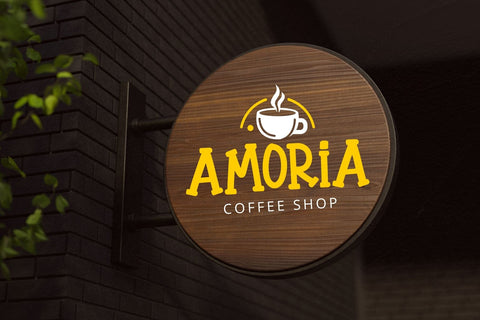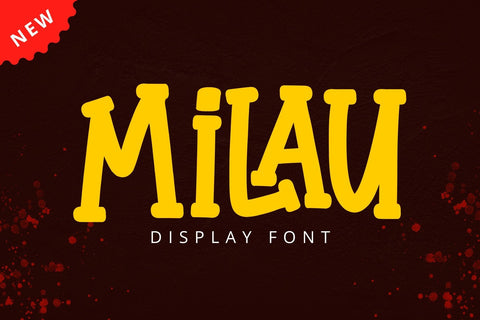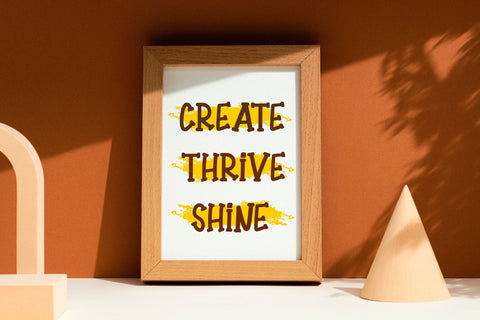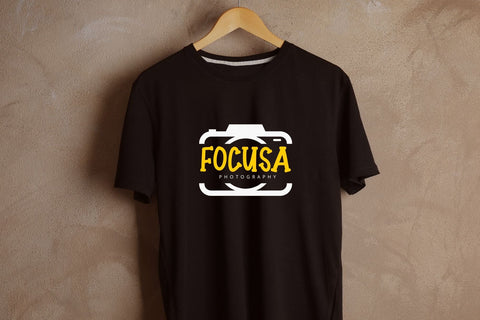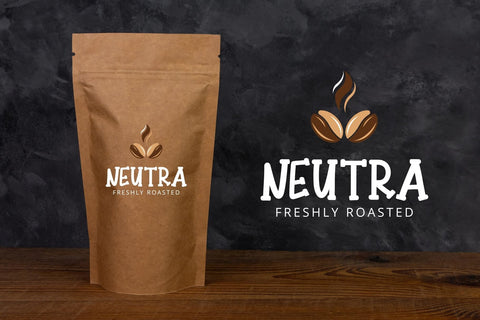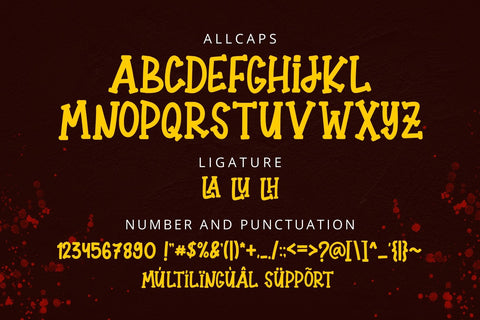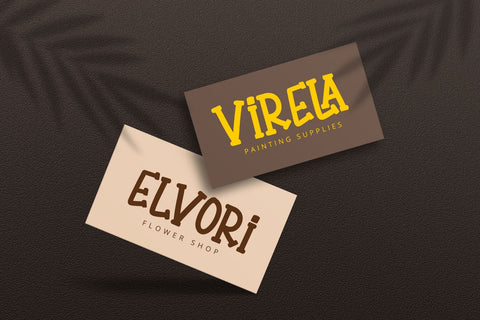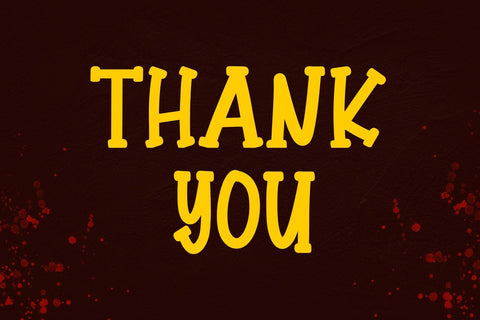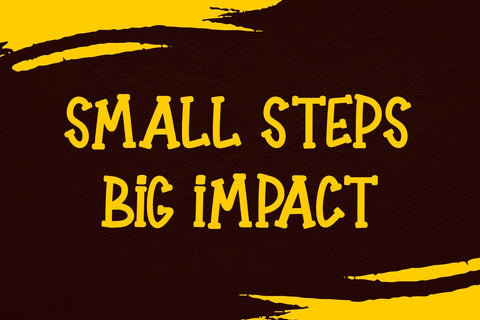
Milau - Display Font
Milau is a bold display font featuring unique geometric shapes and modern aesthetics. Ideal for posters, branding, and packaging, its striking design adds a contemporary and creative touch to projects, ensuring a memorable visual impact.